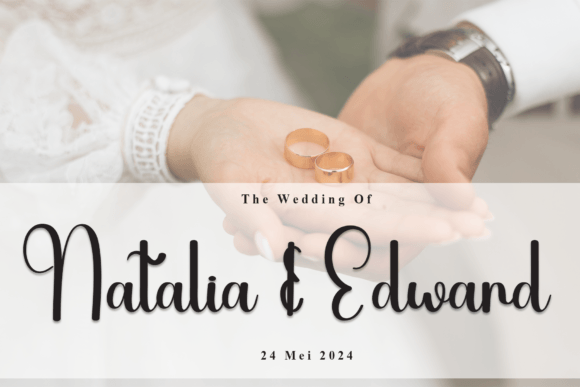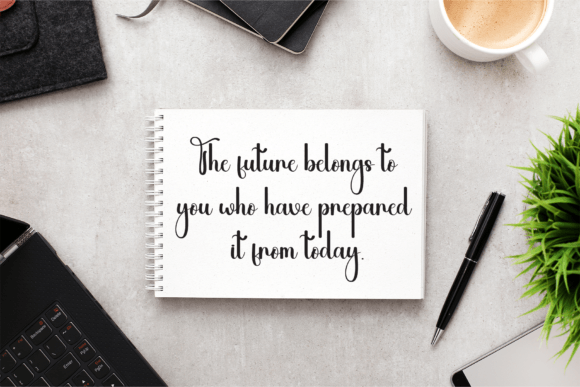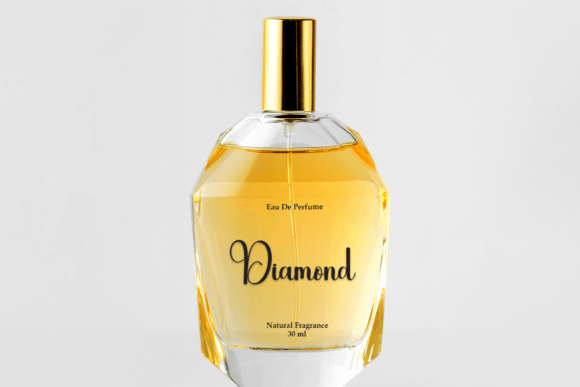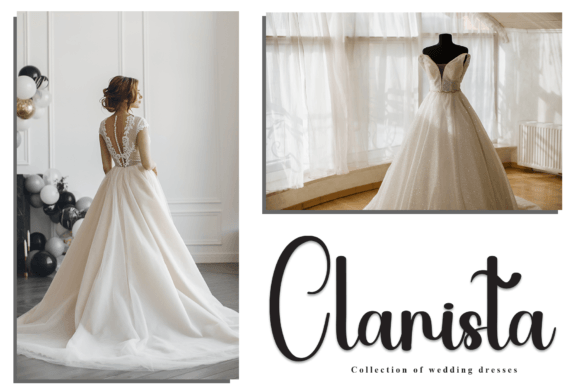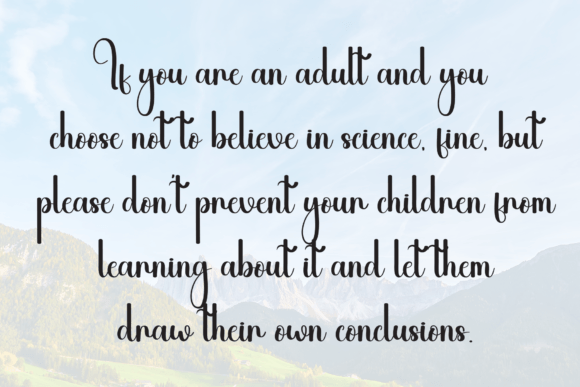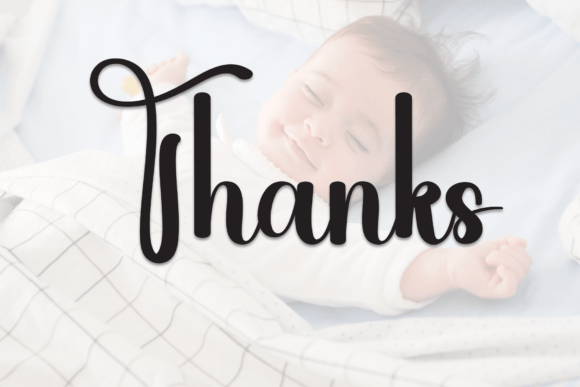
The Joy of Handwritten Charm: Introducing Babyday Font
Have you ever stumbled upon a beautifully handwritten note or invitation and felt an instant rush of excitement and warmth? For many of us, there’s something special about handwritten text that makes it feel more personal and inviting. It’s this very sentiment that the Babyday Font embodies, bringing a sweet and friendly touch to any design project.
Babyday Font is a delightful handwritten font that’s perfect for adding a playful twist to wedding invitations, greeting cards, or any other design that needs a fun and whimsical touch. As a designer, you know how important it is to have the right tools at your disposal to bring your creative vision to life. That’s where Babyday Font comes in – a valuable addition to any design arsenal that’s sure to bring a smile to your clients’ faces.
Babyday Font Key Features
- Unique Characteristics: The font features a playful, cursive design with a mix of rounded and pointed letterforms, making it ideal for use in children’s books, nursery decorations, and other applications where a whimsical touch is desired.
Designer Review: Babyday Font
First of all, I’d like to say that I was really excited to dive into the Babyday Font, especially given its cute and playful name. ✨ One of the things that stands out to me is the friendly and approachable feel that this font exudes. It’s perfect for a nursery or a children’s book cover, and it’s easy to see why it’s become popular among designers.
Another thing that works well in the Babyday Font is its legibility. ✨ The letters are well-spaced and easy to read, making it a great choice for any project where clarity is key. I also appreciate the variety of font weights and styles that are available, giving designers plenty of options for customization.
- ⚠️ The font may not be suitable for more formal or professional projects, as its playful nature may come across as immature or unprofessional.
- ⚠️ Some designers may find the font too sweet or cutesy, which can be a turn-off for certain projects.
In general, I think the Babyday Font is a great choice for designers looking for a friendly and approachable font. While it may not be suitable for every project, it’s perfect for a children’s book or nursery, and its legibility and customization options make it a great choice for designers who want a lot of flexibility.
Tips for Getting the Most Out of Babyday Font
Use Babyday Font for creating playful and whimsical designs. It pairs well with bold and bright colors. Experiment with different font sizes and styles to create visual interest.
Babyday Font is ideal for creating designs for children’s products, such as nursery decor, toys, and clothing. It’s also great for creating social media graphics and advertisements for family-friendly brands.